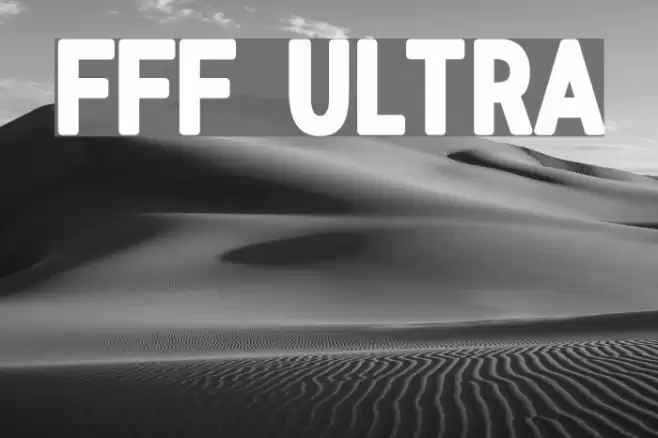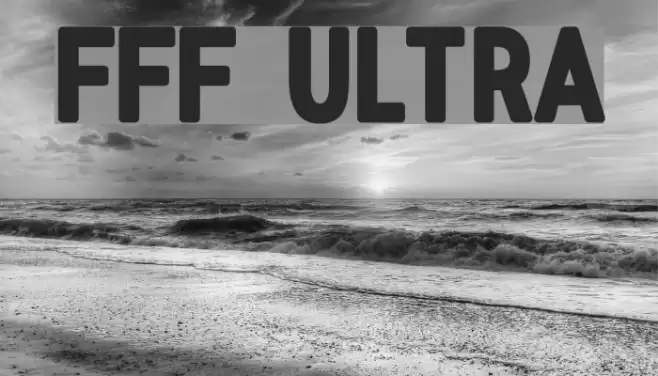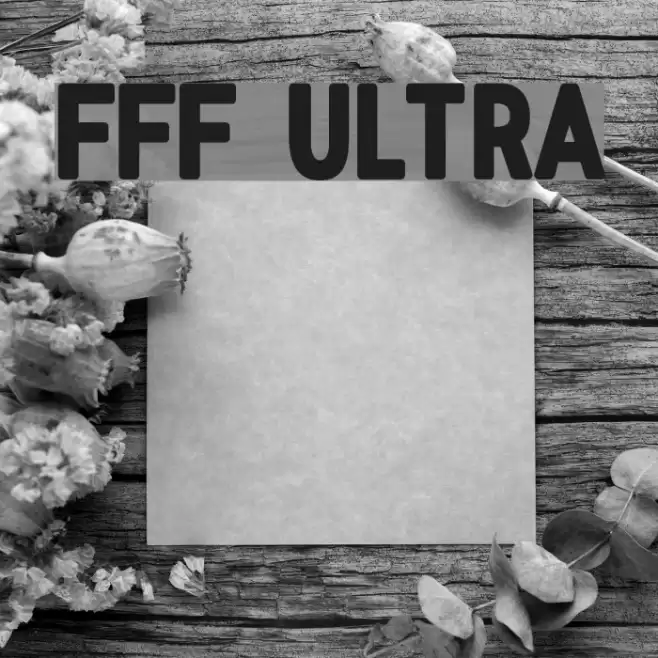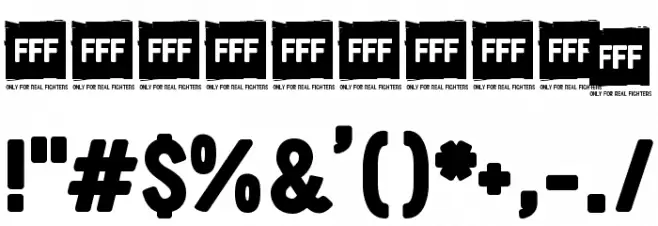
FFF Ultra Font
FFF Ultra Description
This font features bold, uppercase letters with a strong, impactful presence. The characters are uniformly thick, providing a sense of stability and strength. The design is straightforward, with clean lines and no additional embellishments, making it highly legible. The font includes both uppercase and lowercase letters, numbers, and a variety of special characters. Its boldness and simplicity make it suitable for attention-grabbing headlines and statements.
A bold, impactful font with clean lines and high legibility from Uncategorized fonts.
- Proposed Projects: Ideal for posters, banners, headlines, and any design requiring a strong visual impact.